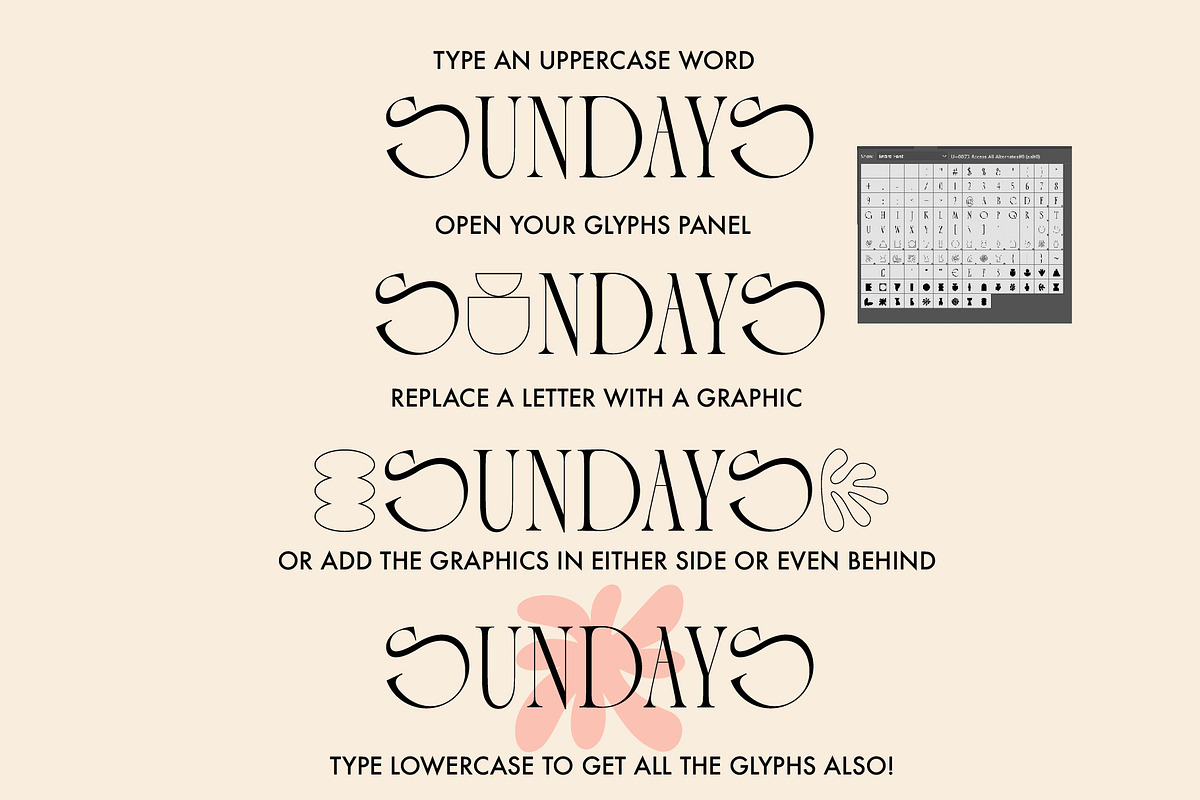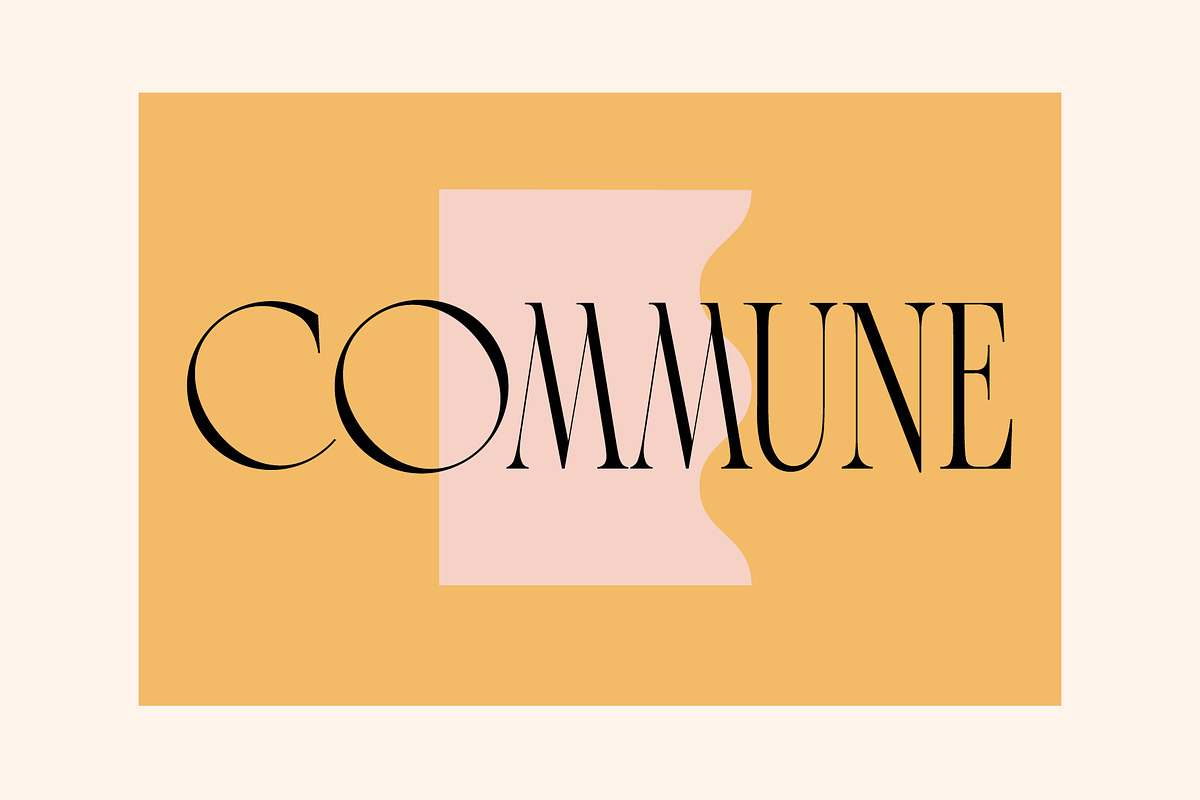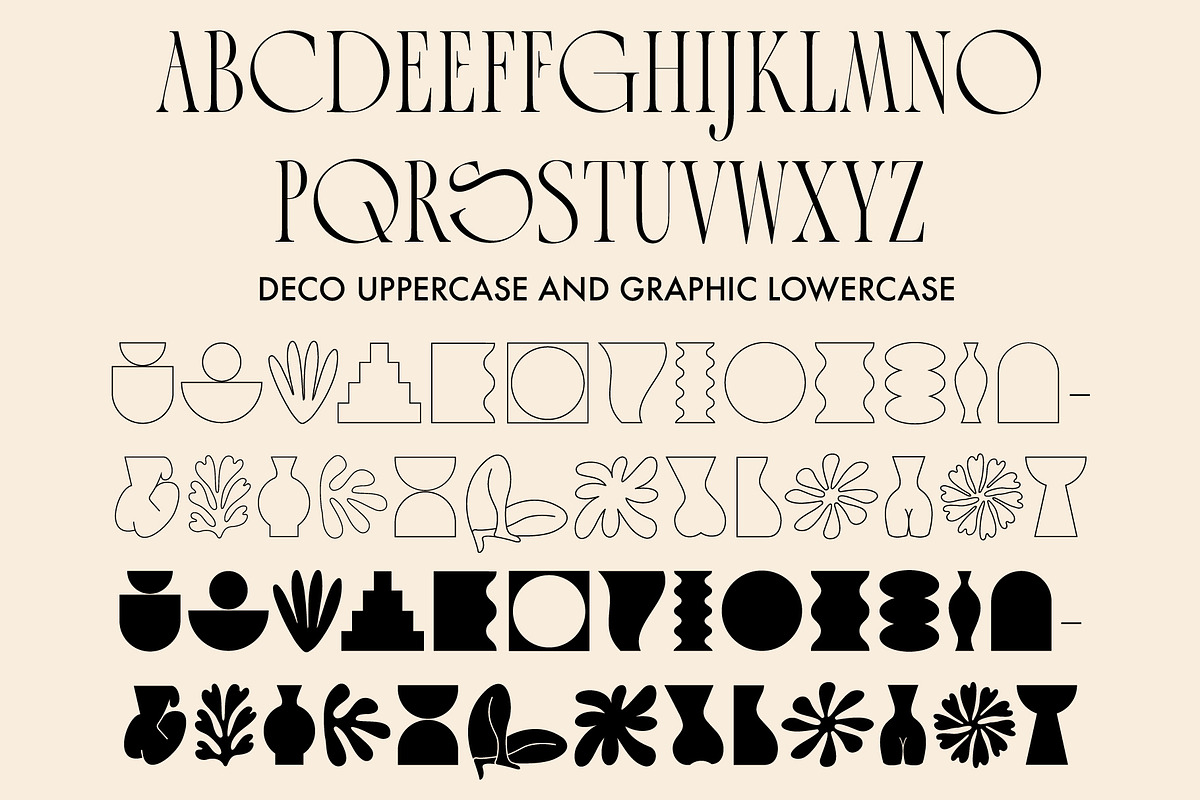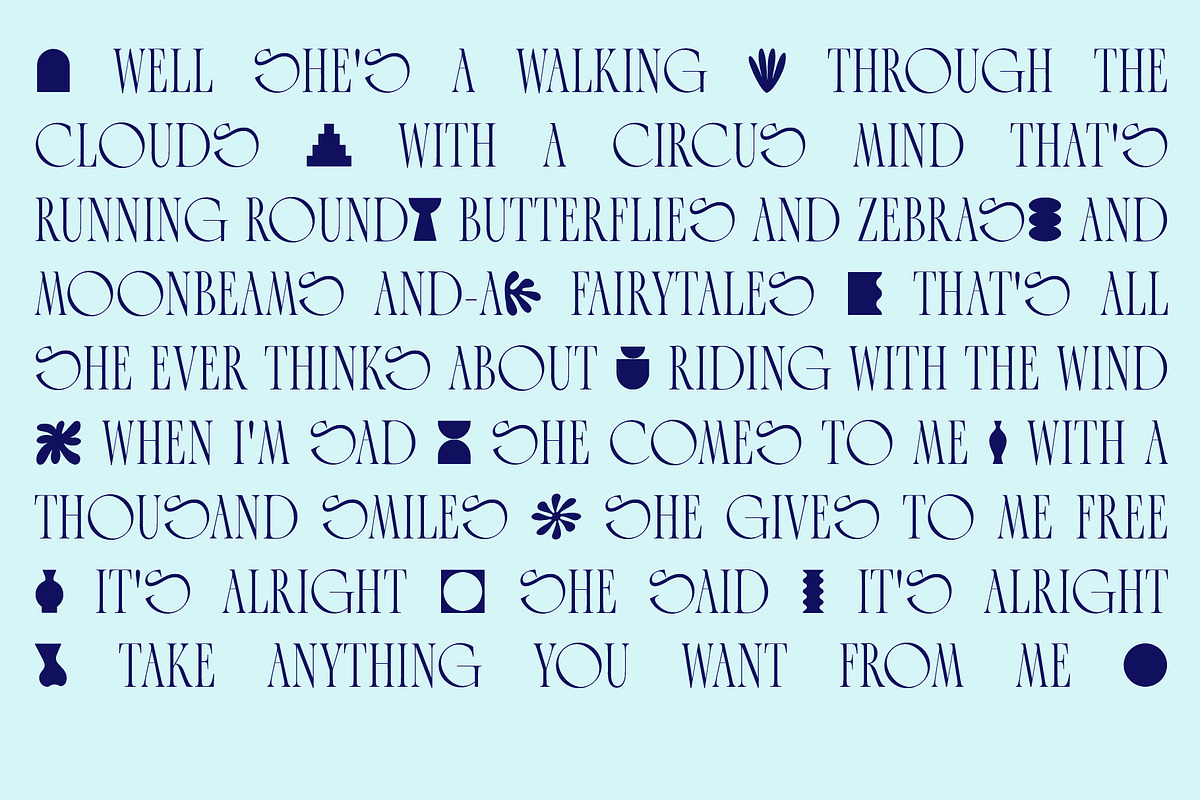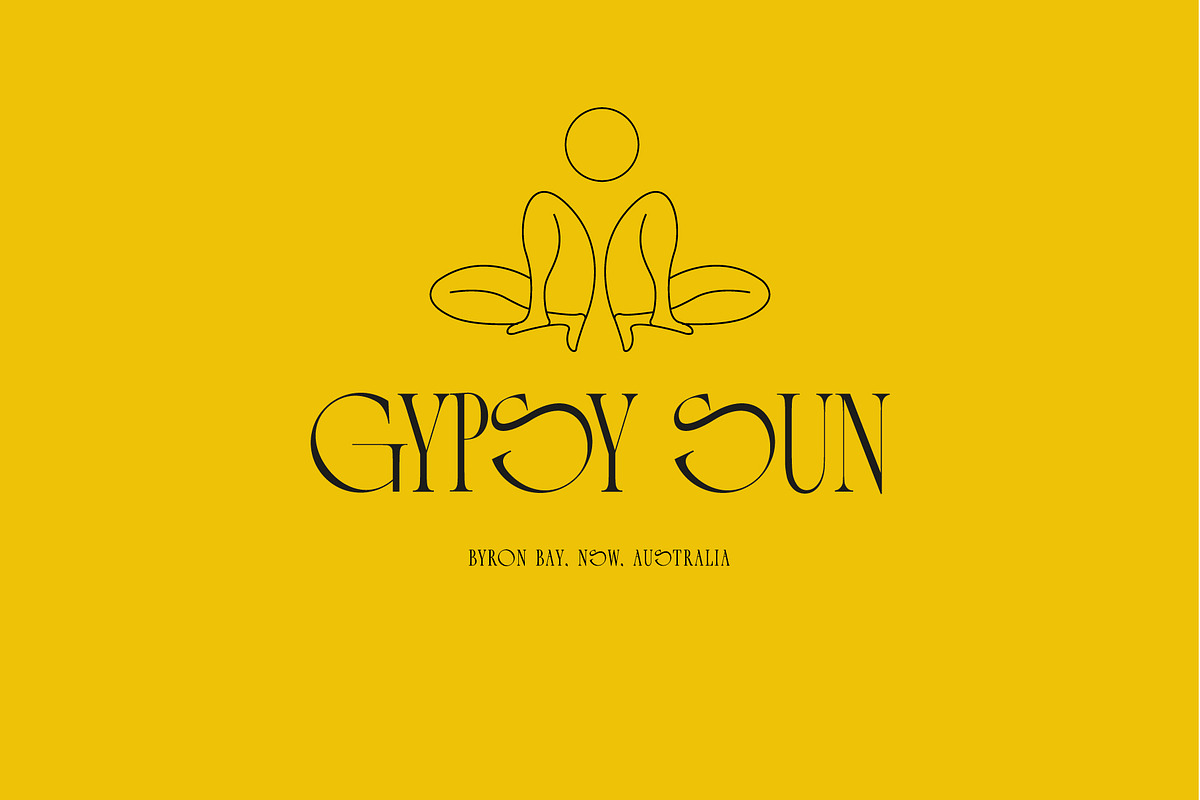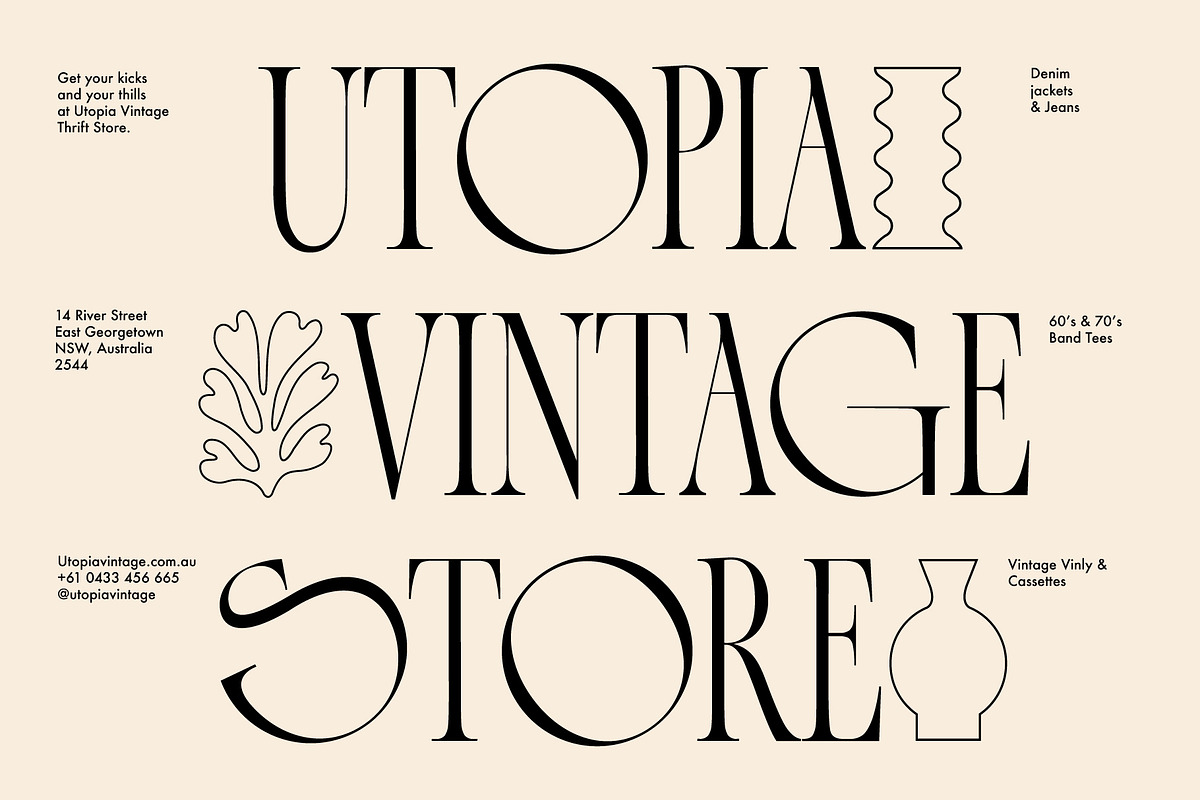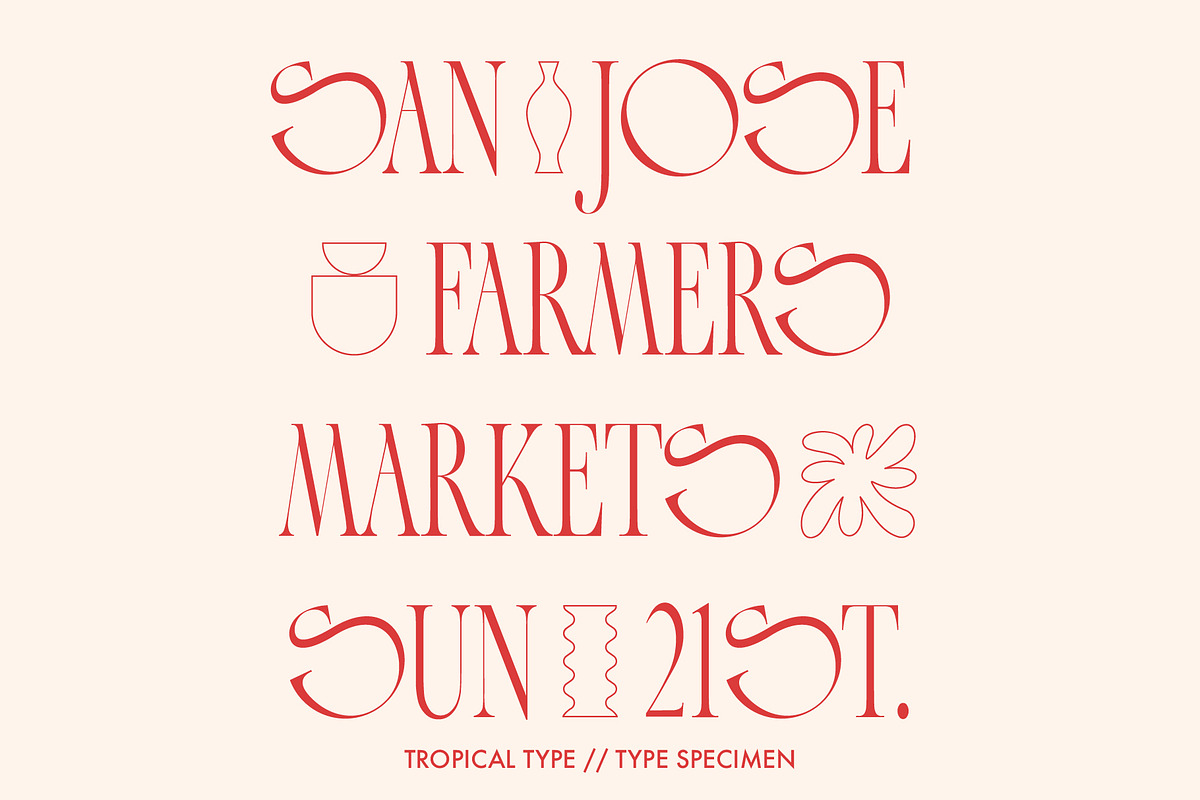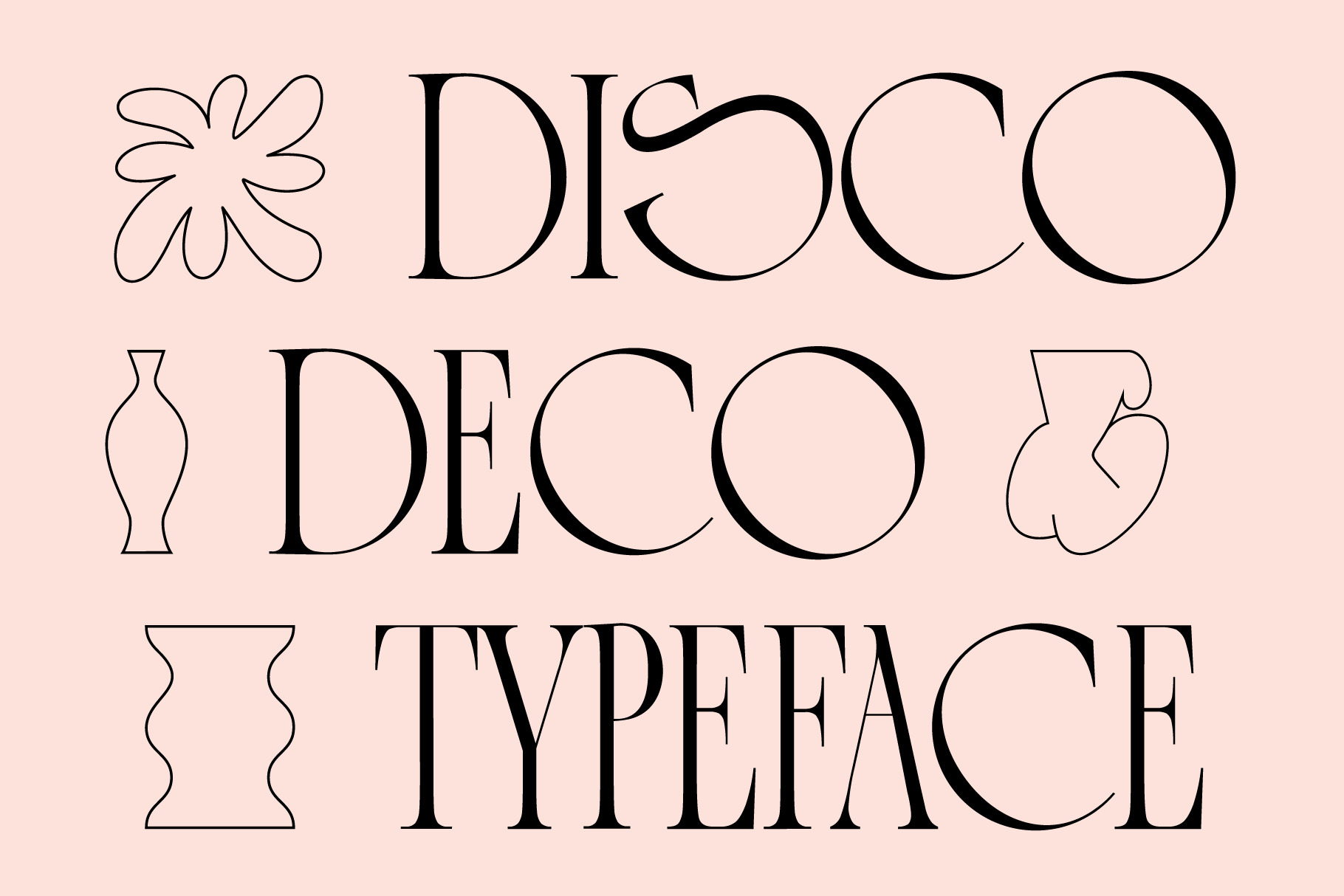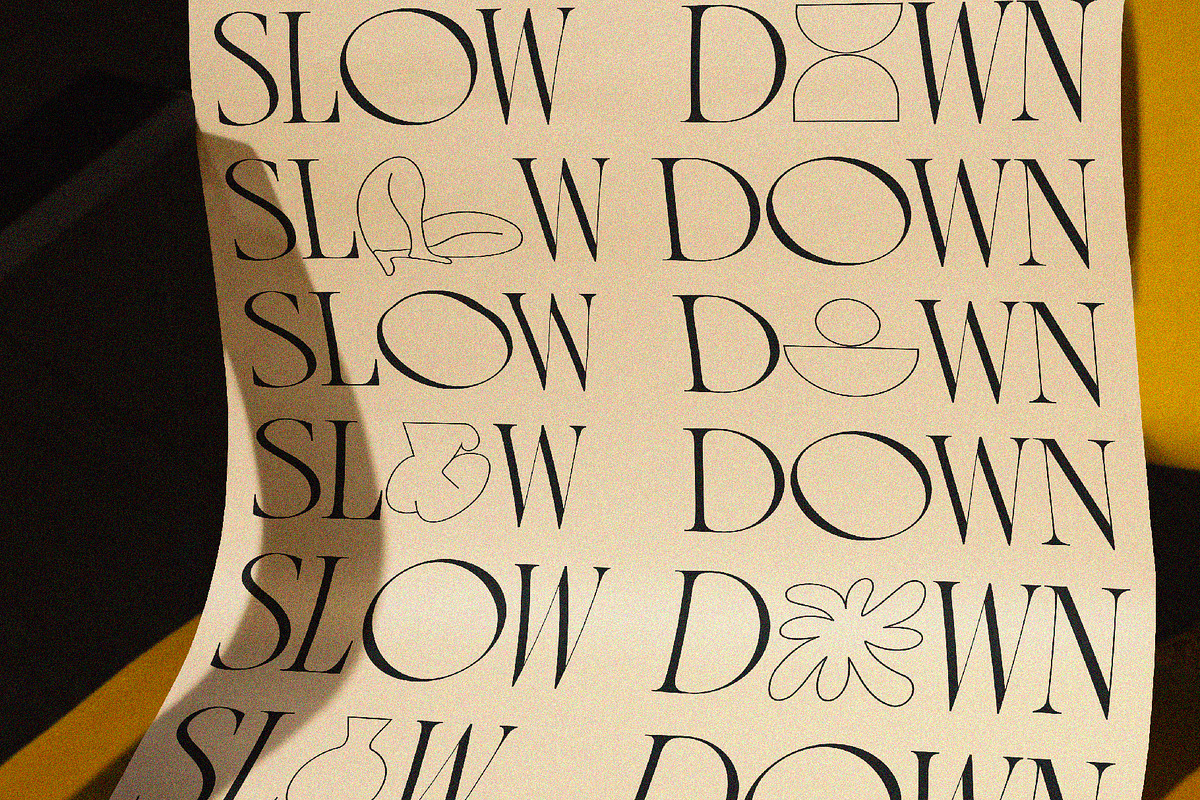
Disco Deco - Graphic Serif Typeface
DISCO DECO - GRAPHIC FONT Do you like fun? if you answer is yes then you're in luck! Disco Deco Graphic Font is all about fun. It's even got a whole lowercase of fun graphics to mix with your typography! Use the graphics to replace letters, go alongside letters or behinds letters. The best way to do this is to open up the glyphs panel in your software so you can see them all. Then add them in where ever you like! Disco Deco is highly inspired by the art deco movement but with hints of different eras mixed in too. Make a funky poster with ease or a cool logo in seconds. Enjoy.
- Graphic Glyphs
Non English glyphs included: ą á â à ä å ã æ ć ç ę é ê è ë í î ì ï ı ł ñ ń ó ô ò ö õ ø œ ś š ß ú û ù ü ý ÿ ž ź ż.Ą Á  À Ä Å Ã Æ Ć Ç Ę É Ê È Ë Í Î Ì Ï Ł Ń Ñ Ó Ô Ò Ö Õ Ø Œ Ś Š Ú Û Ù Ü Ý Ÿ Ź Ż